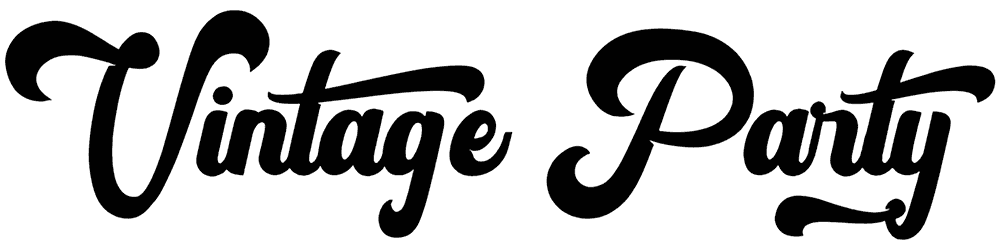
Vintage Party Font
Want to give off an amiable sense in your illustrations to encourage many audiences who negotiate with routine reports, so never ignore the baseball fonts, especially Vintage Party, which is ornamented in the sweet curved body. So, set out to make a striking look in invitations, quotes, flyers, posters, cards, T-shirts, and other casual displays regarding its lack of numbers.